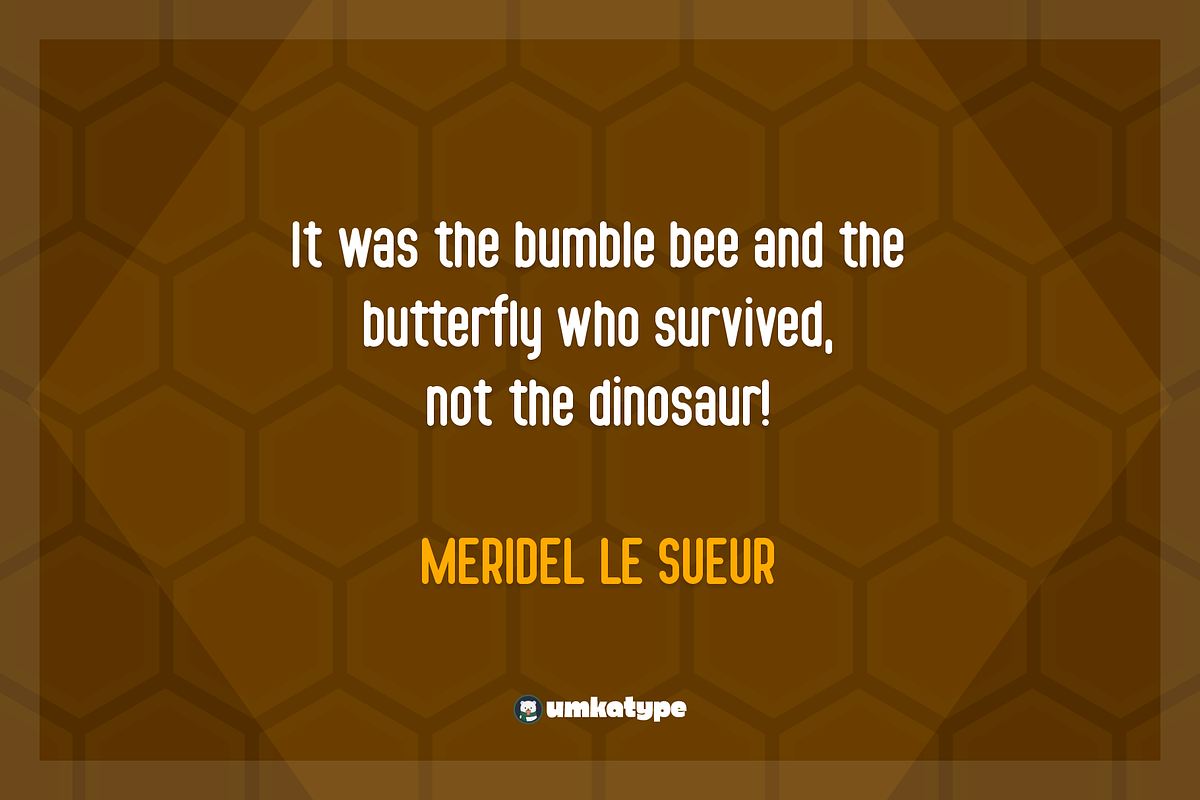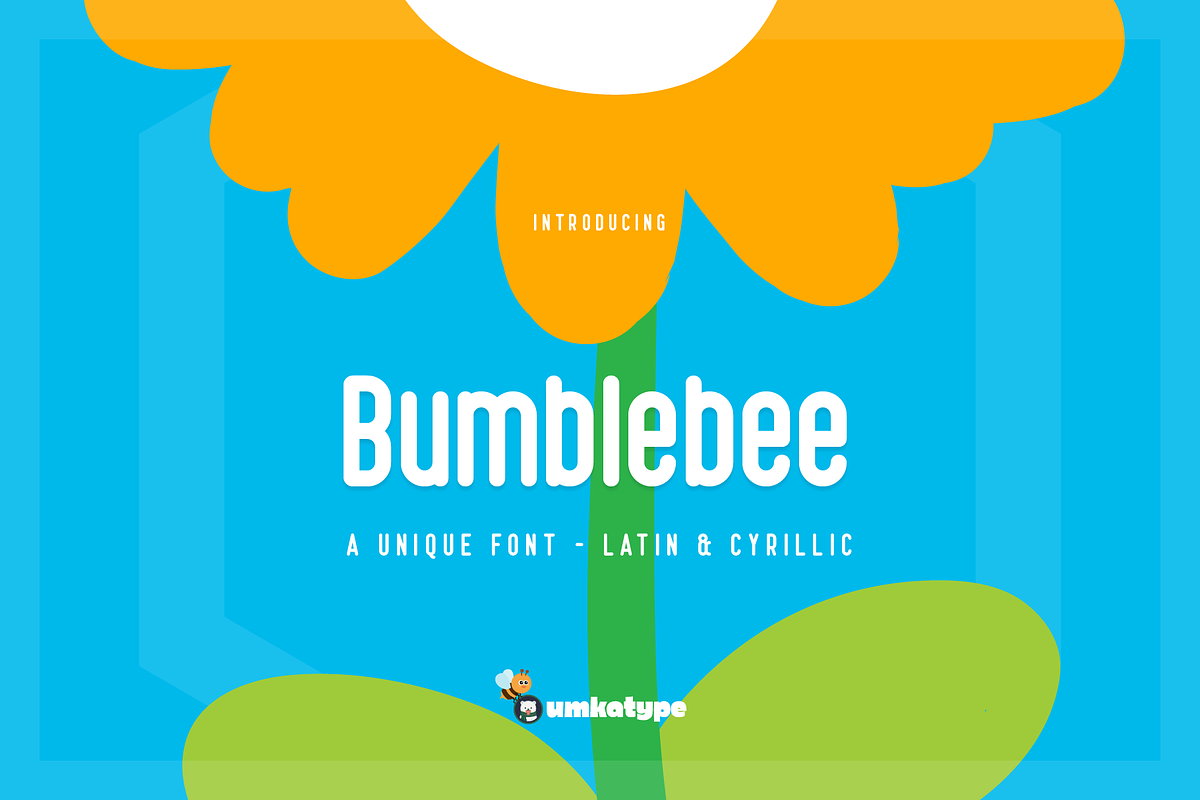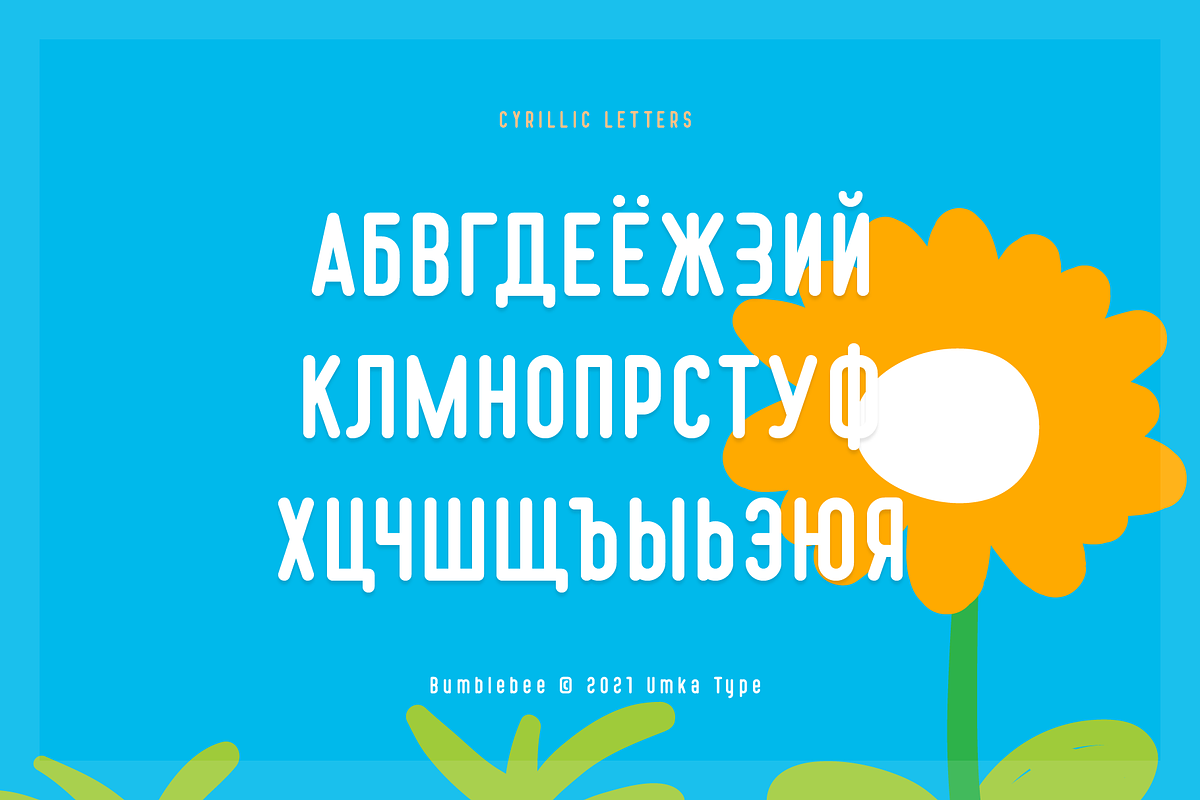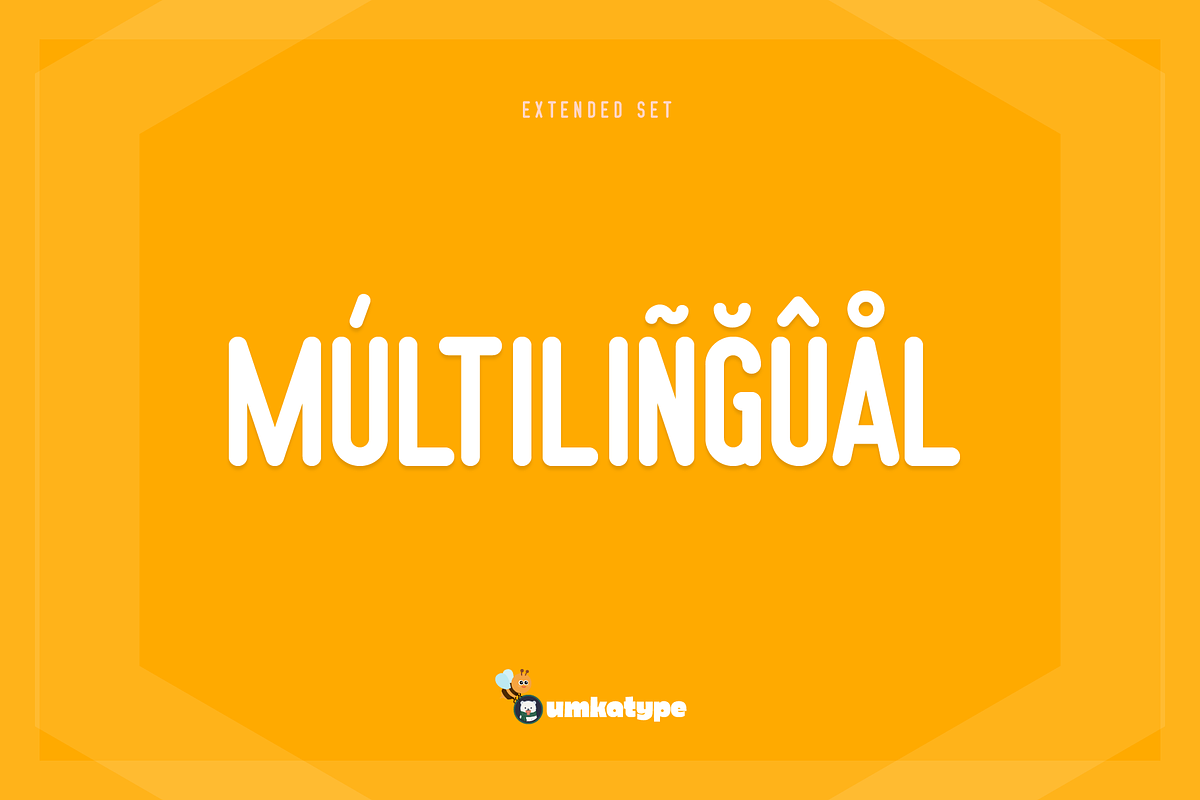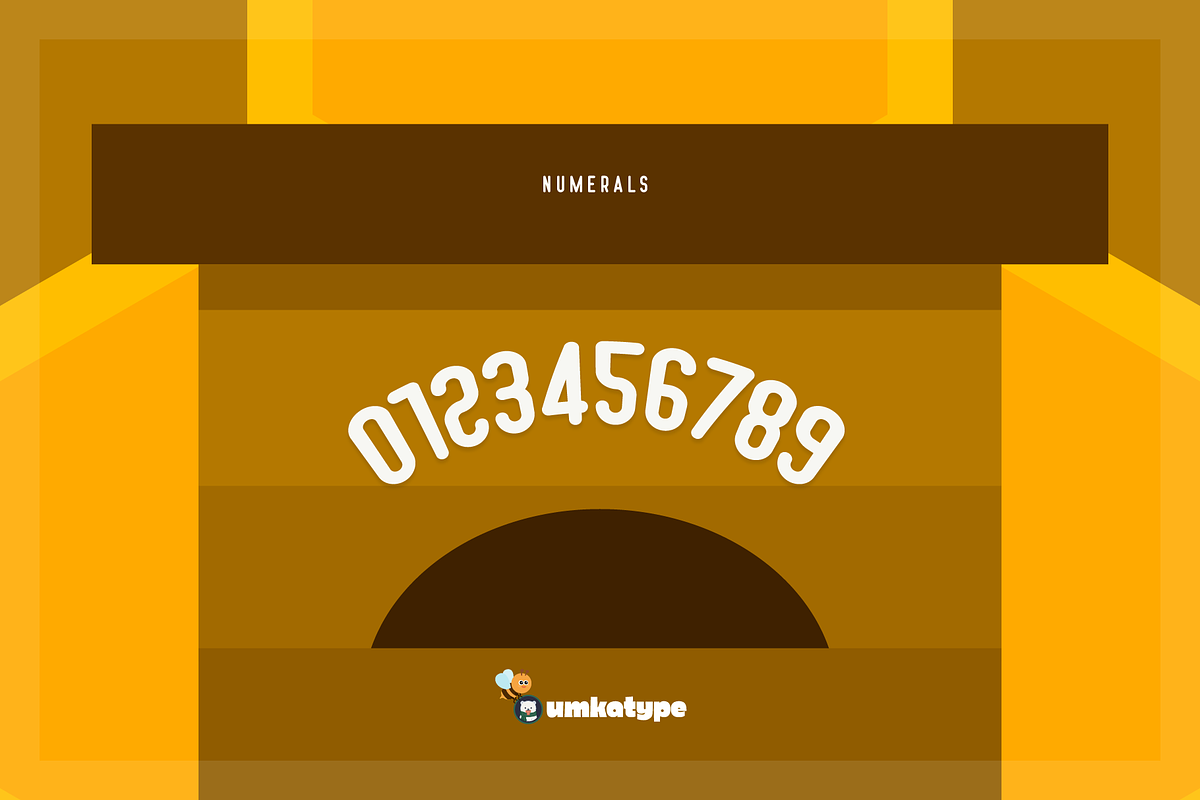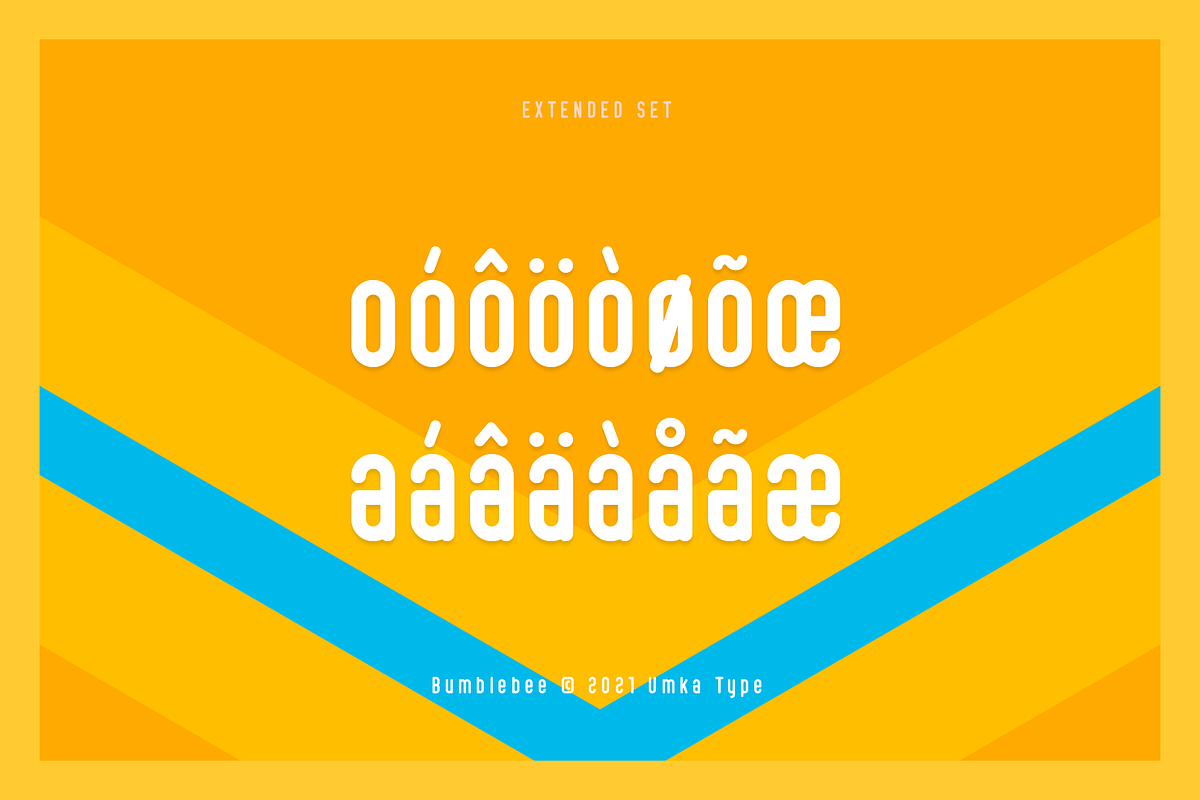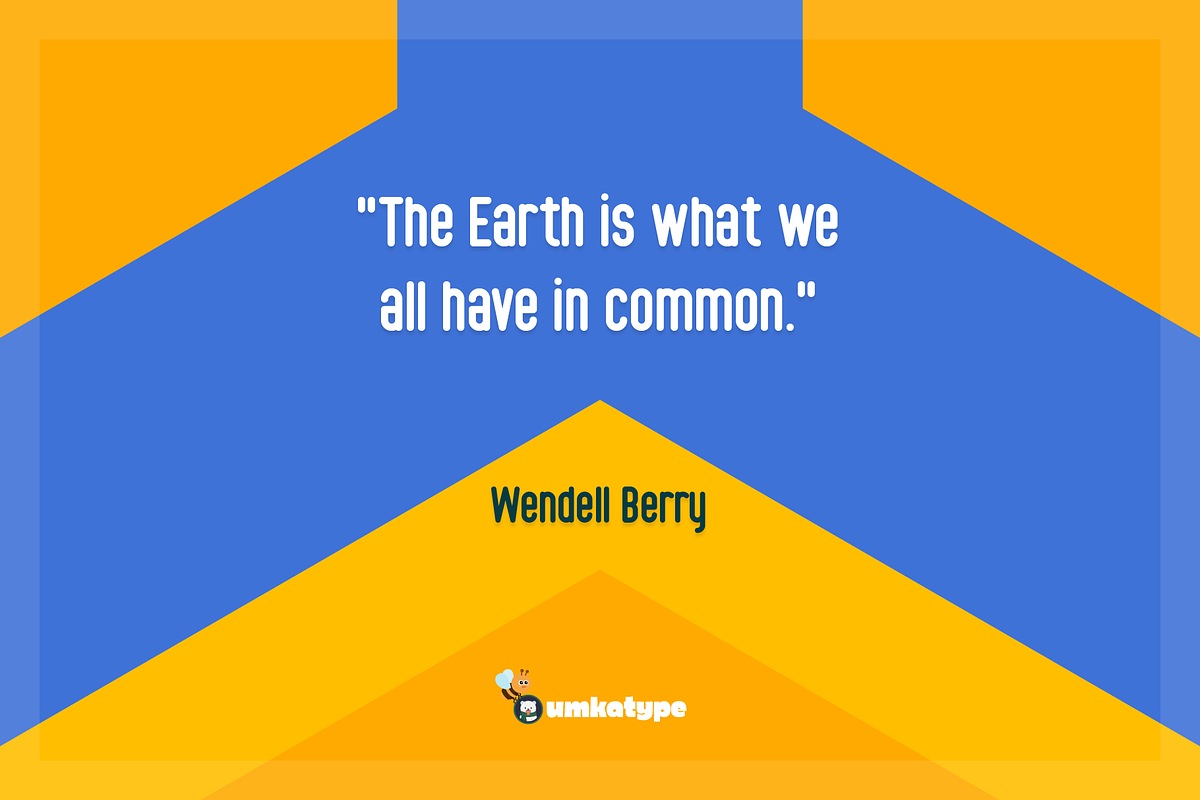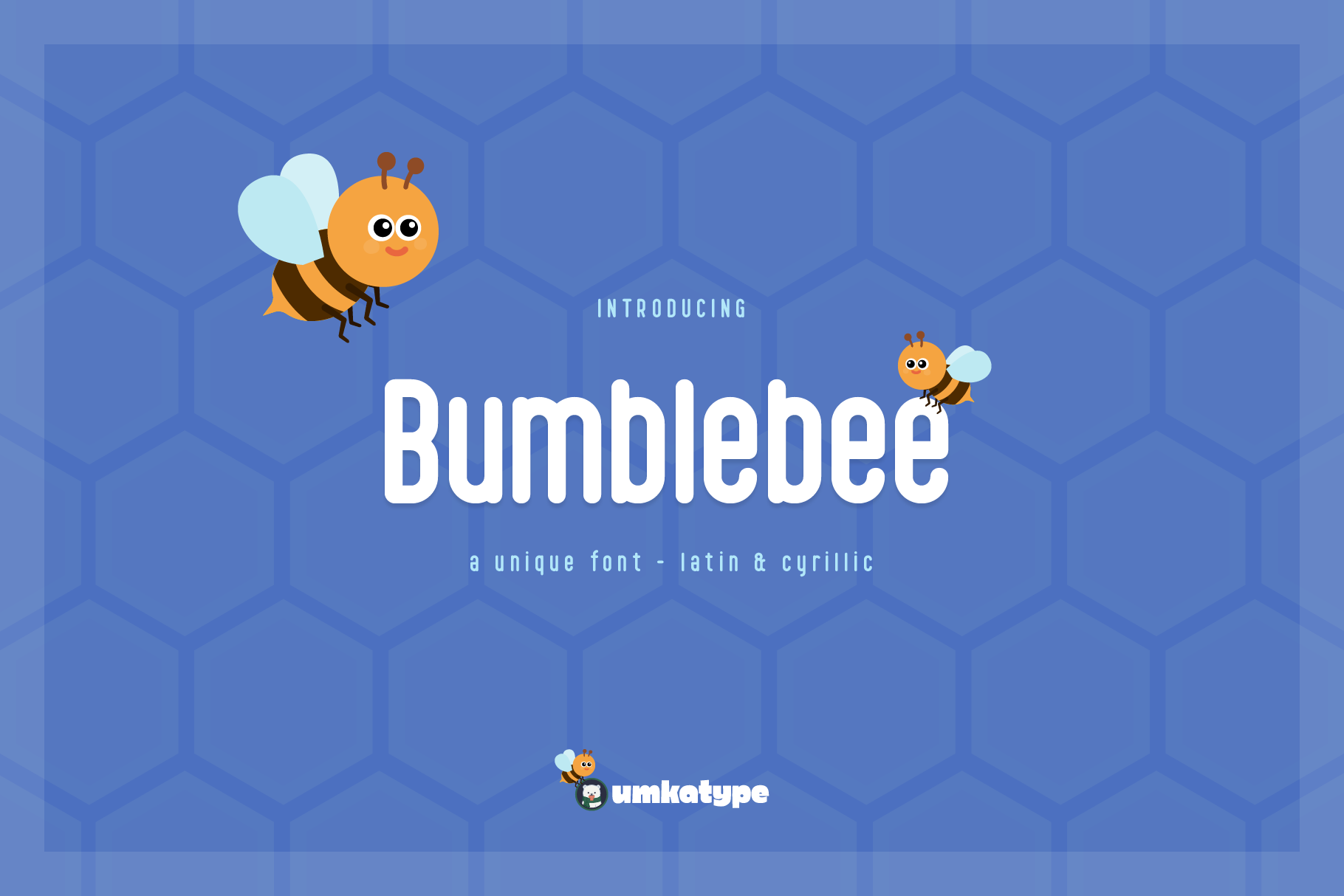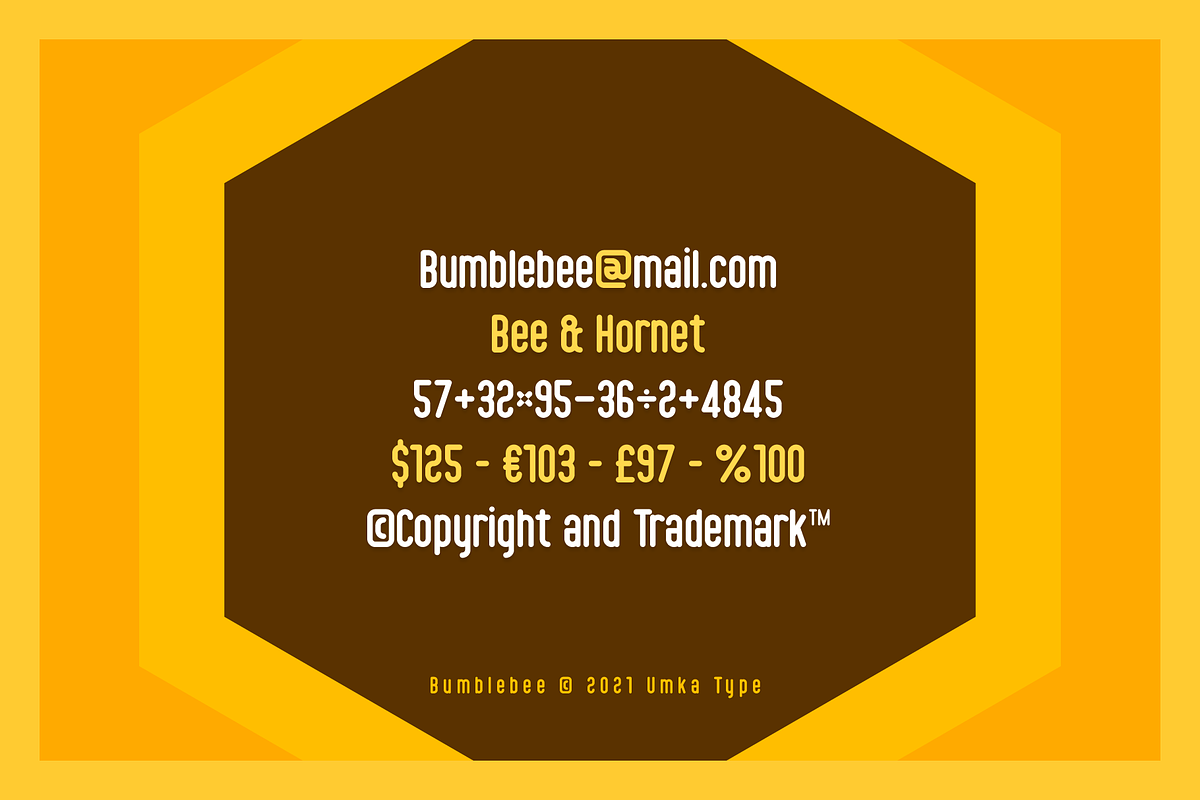
Bumblebee Font
Bumblebee - A Unique Sans Serif Font
- Bumblebee is a carefully crafted font.
- Multilingual: It has Extended Latin and Extended Cyrillic letters.
Bumblebee created for games, web design, branding and social media works.